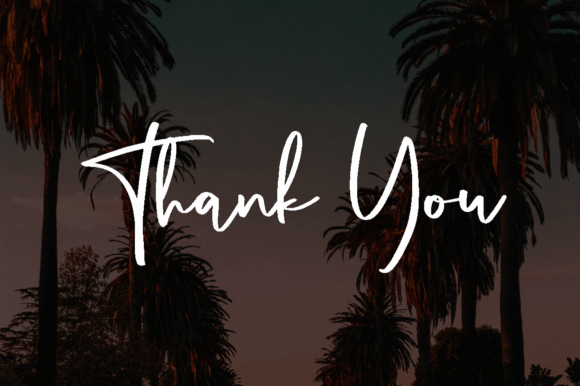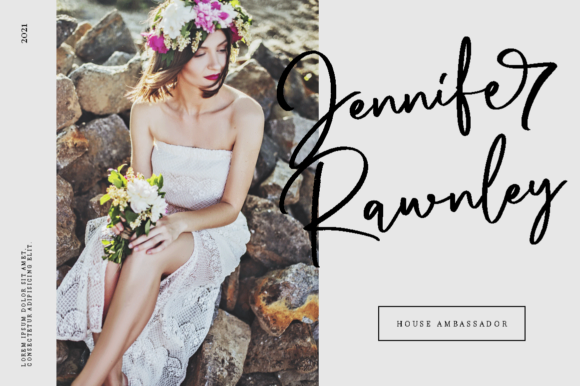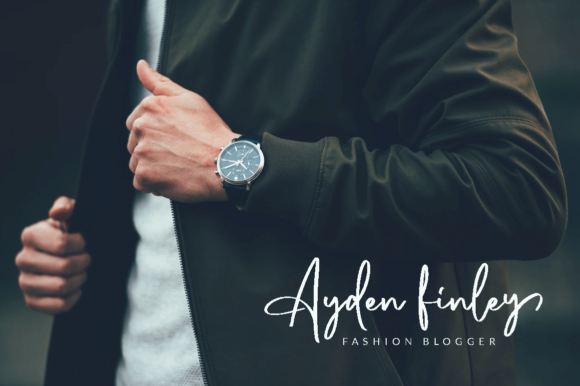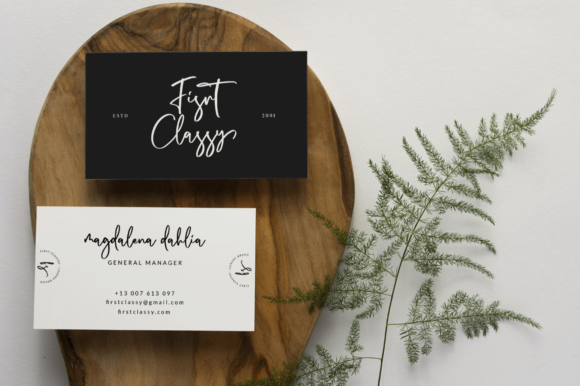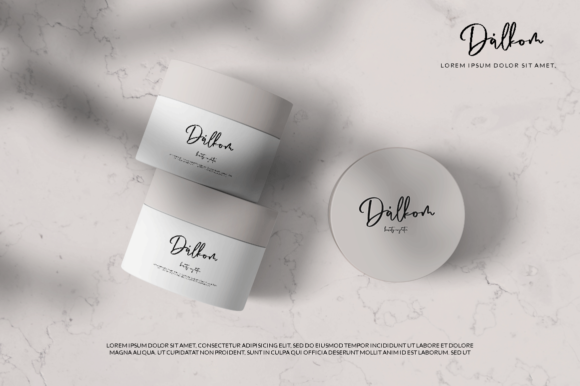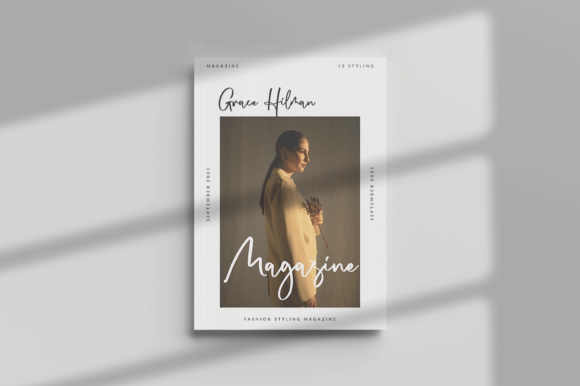
Introduction to Dillnation Font Font
Fonts play a crucial role in design, and the Dillnation Font font is a typeface that brings both character and versatility to any project. Whether you’re working on a branding project, a website, or a print design, the Dillnation Font font offers a unique style that can elevate your work.
Dillnation is a lovely and delicate script font that exudes elegance and class.
This font was particularly crafted for those who need a beautiful and refreshing look to their designs Dillnation is PUA encoded which means you can access all of the amazing glyphs and ligatures with ease.
Key Features of Dillnation Font Font
Why Choose Dillnation Font Font?
The Dillnation Font font is more than just a typeface – it’s a design tool that helps you communicate your message with style and clarity. Its unique character set and versatile design make it suitable for a wide range of applications, from elegant invitations to bold headlines.
With its carefully crafted letterforms and balanced proportions, the Dillnation Font font ensures readability and visual appeal across all mediums.
What makes Dillnation Font font special?
The Dillnation Font font stands out with its unique design, exceptional readability, and versatility across various design applications.